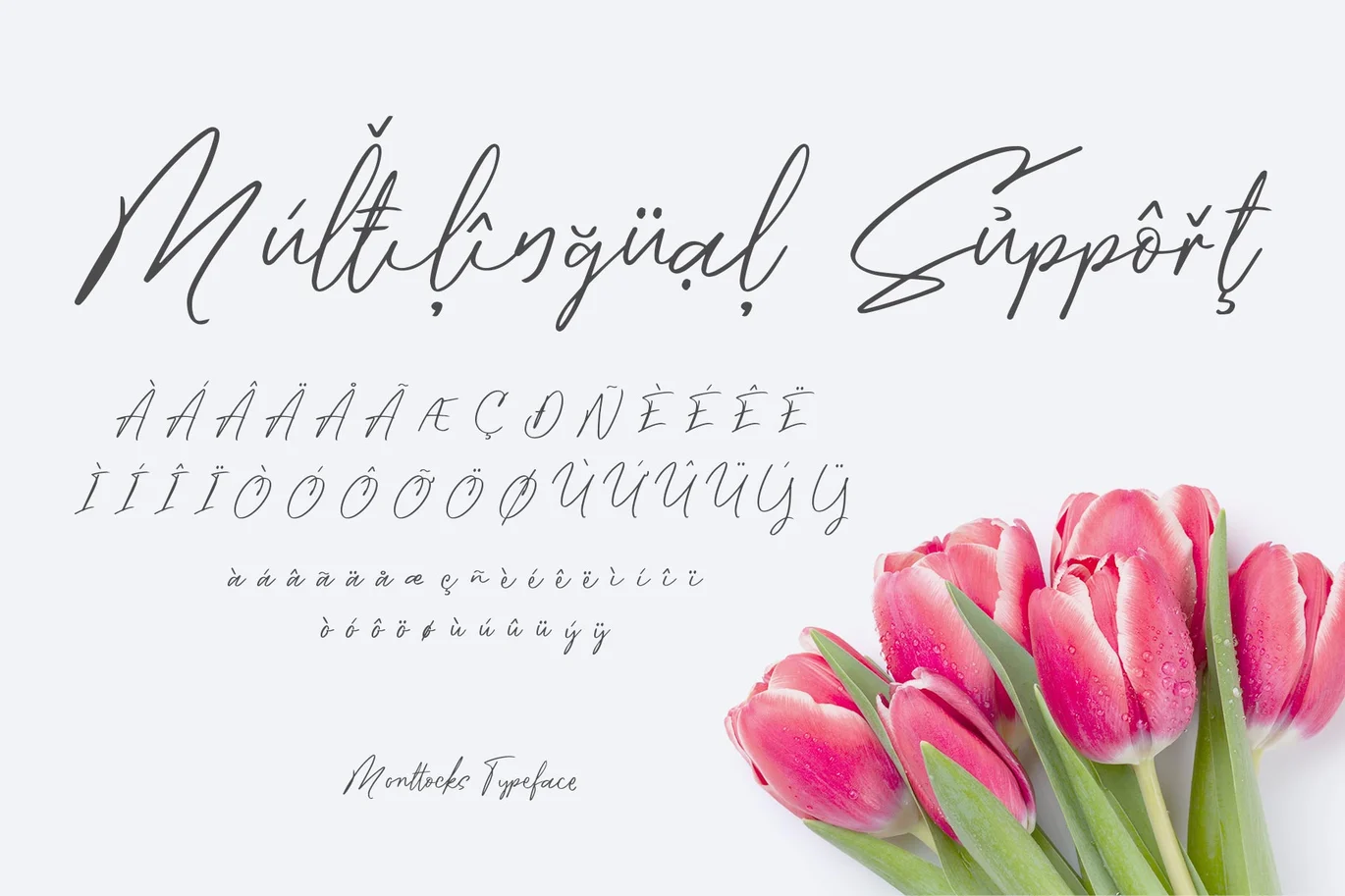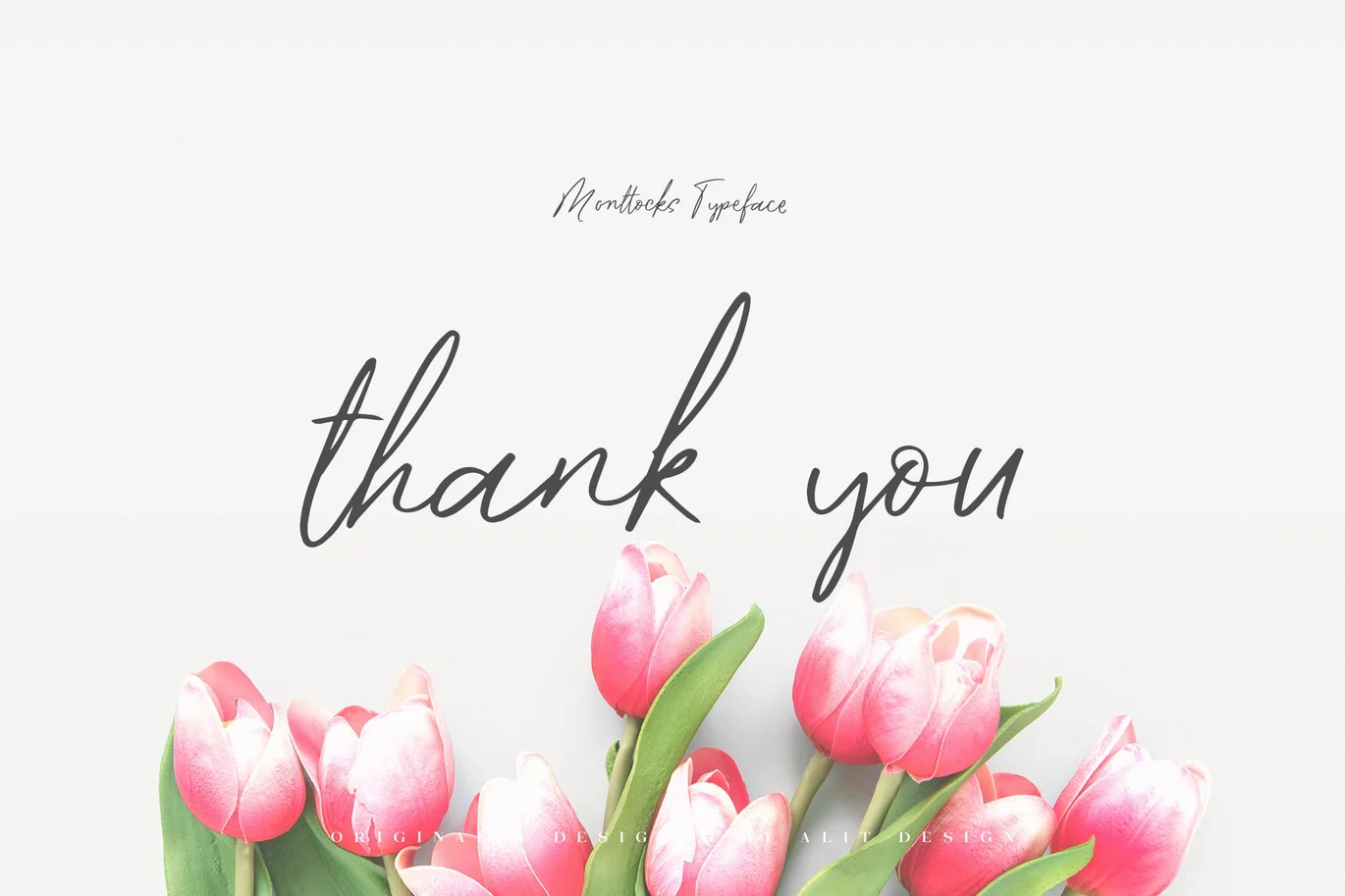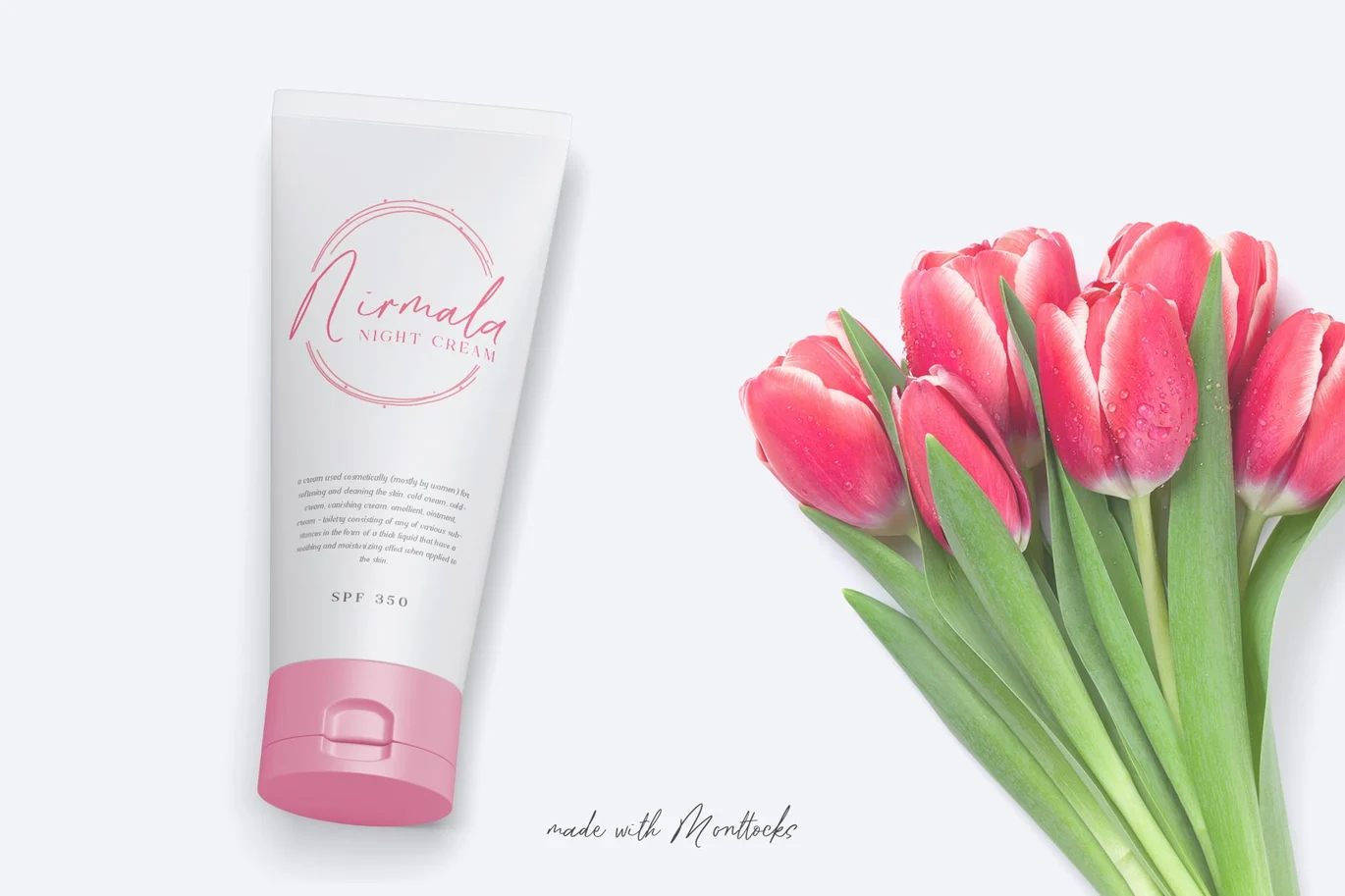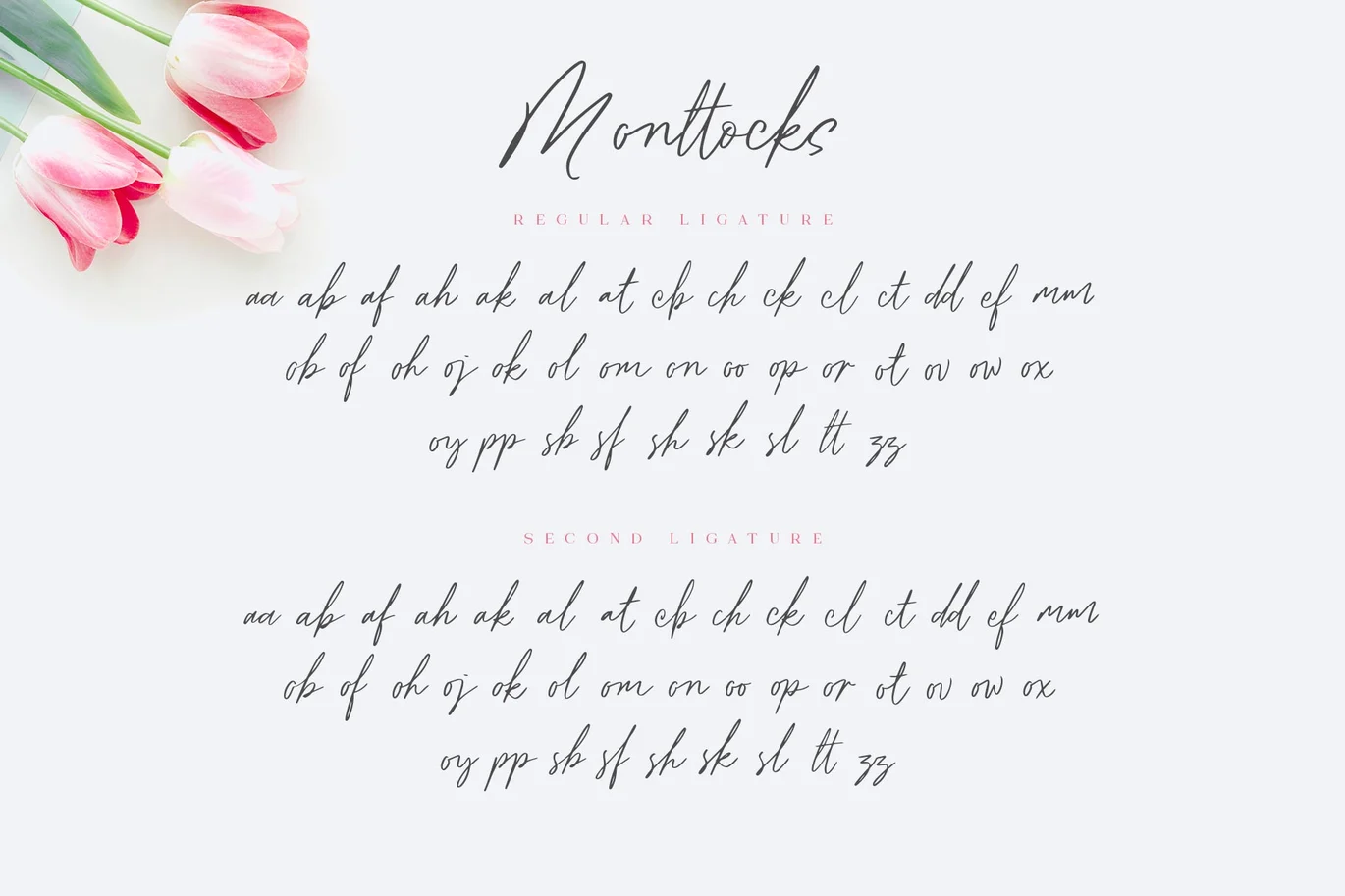
Monttocks Script Font
Introducing Monttocks Script Font
🖤The Monttocks Script Font 🖤 is valentines day inspired font made for romance theme. The Monttocks Script Font adheres to a simple and elegant modern script style, besides that this font has a natural ligatures for authentic designs. In addition, Monttocks font also has 2 similar but different families, which can be used as an alternative that suits the supporting design.
Very suitable for use in making greeting card designs, Instagram posts, logo designs, wedding texts, romance quotes and so on, the first is about love.